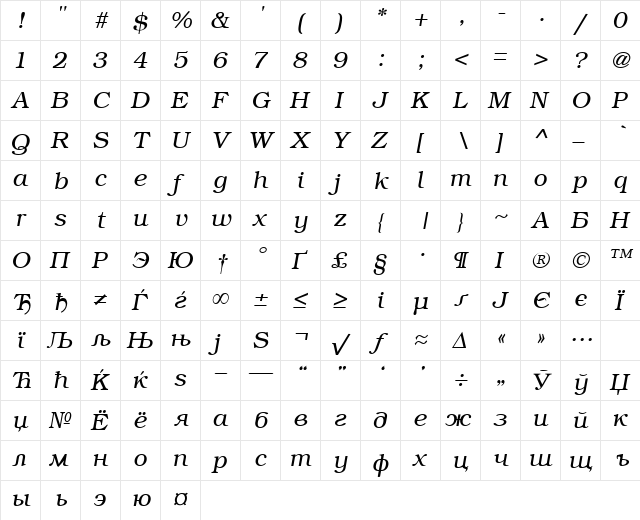
ER Bukinist Mac Italic Font Preview
ER Bukinist Mac Italic
Design Context for ER Bukinist Mac Typeface
ER Bukinist Mac is a composed and adaptable typeface that performs quietly and consistently across a wide range of design contexts. Its italic angle brings a sense of urgency and motion to the letterforms.